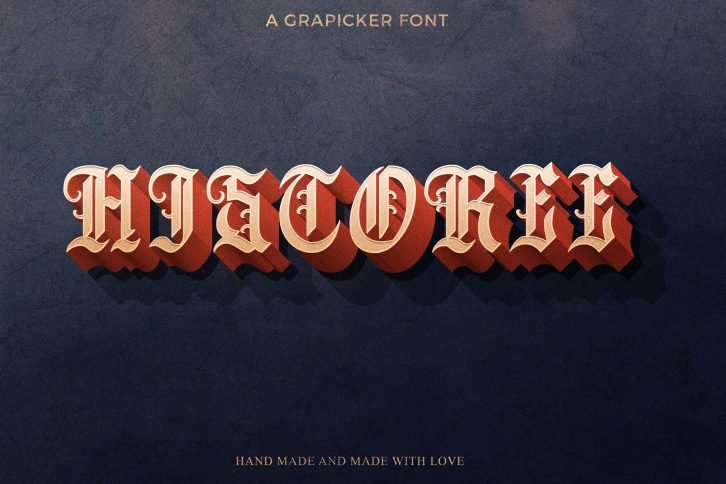
Historee is a gorgeous font that was realeased on December 31, 2020. The font can be used in many style contexts and design environments. Perfect for invitations, magazines, websites, logos, and more! It was designed by Arty Fonts and the file size is 12.76 MB. Thanks for checking out this font!